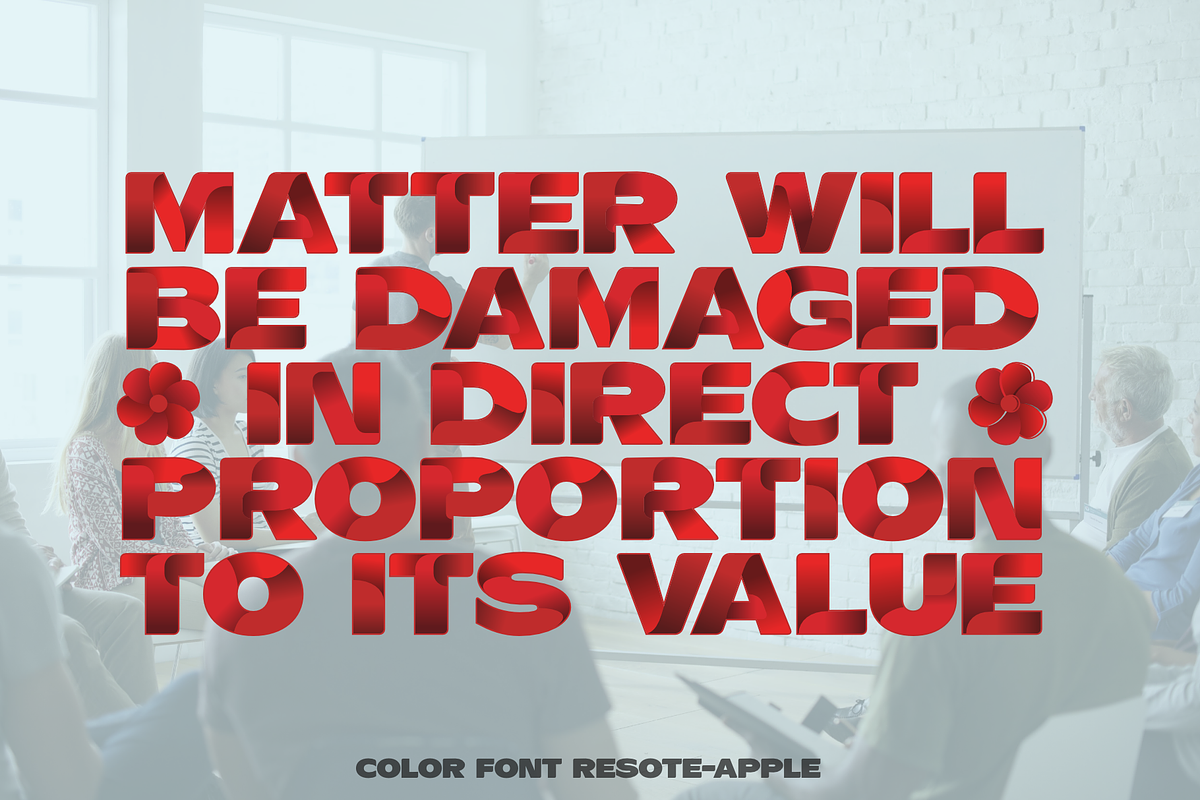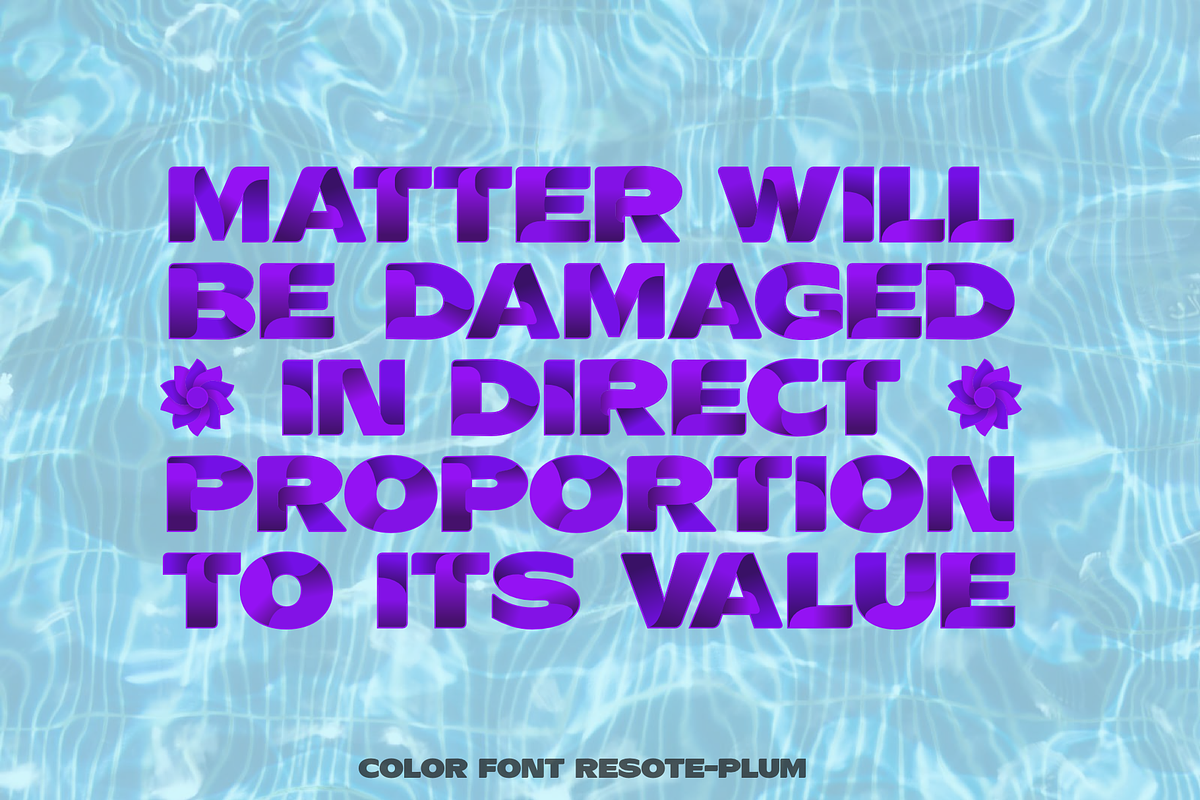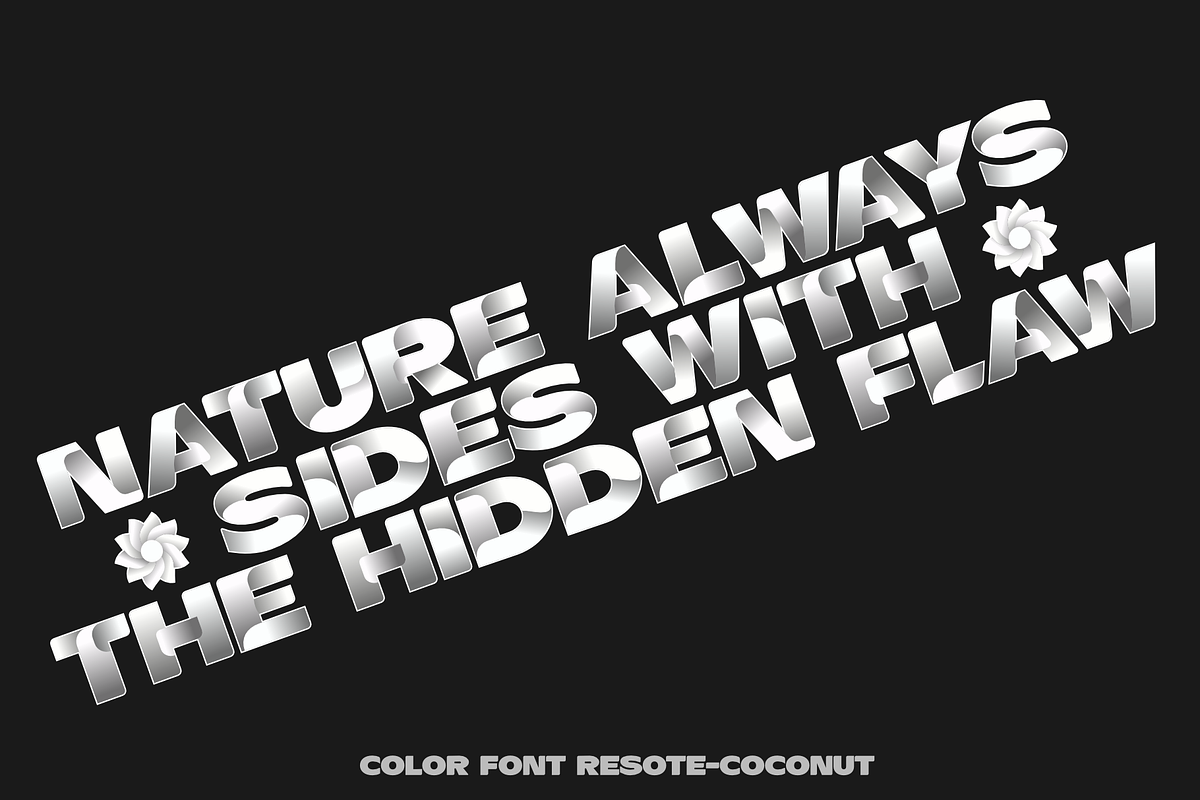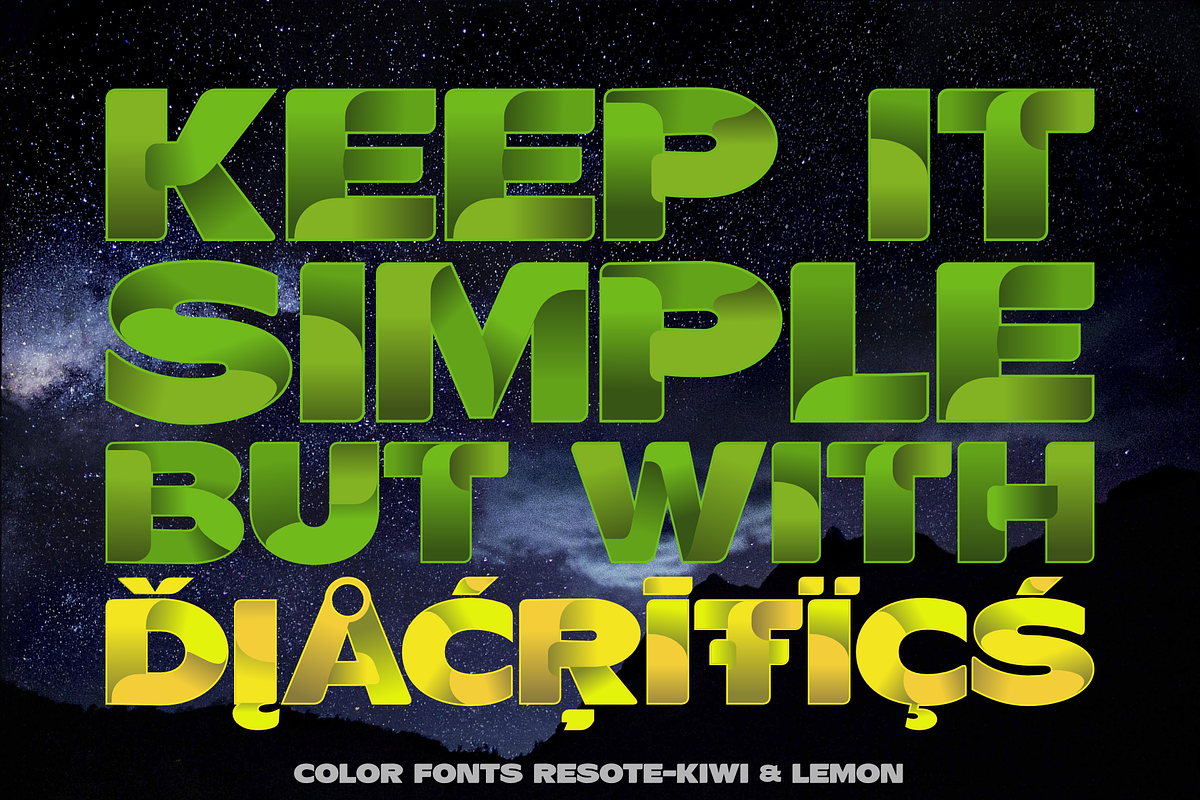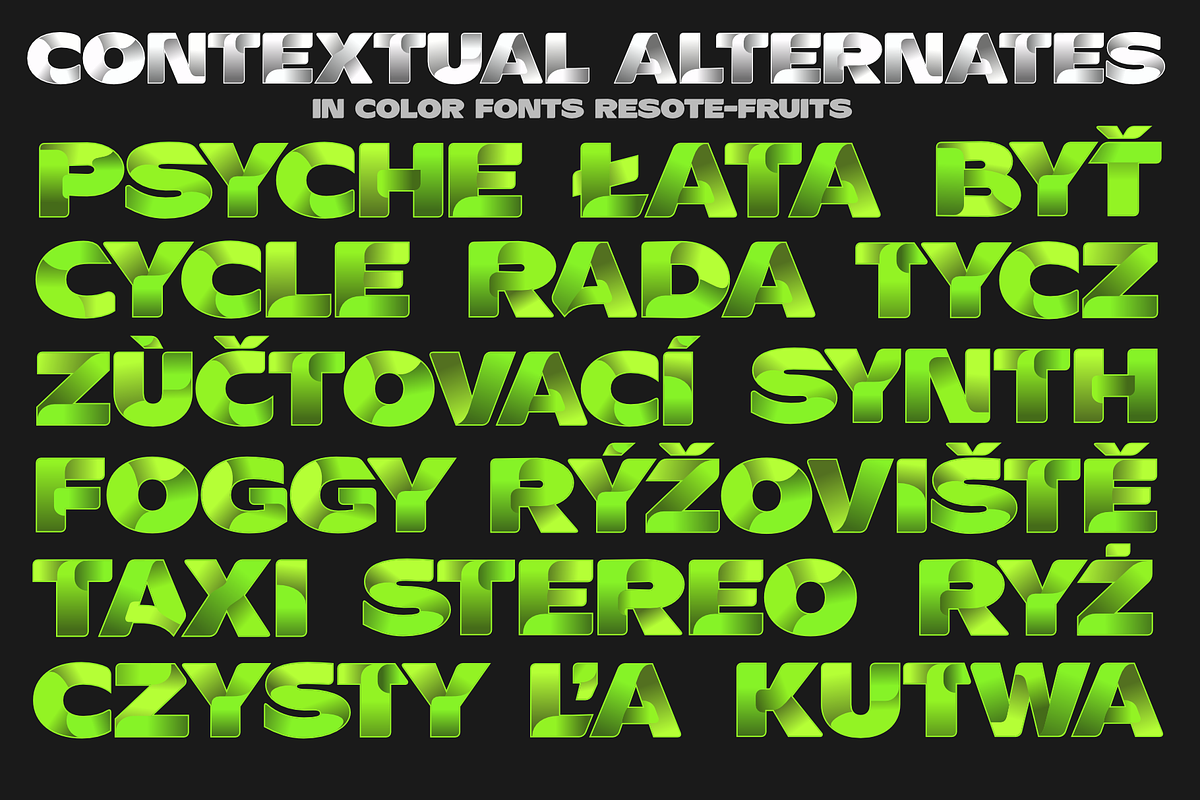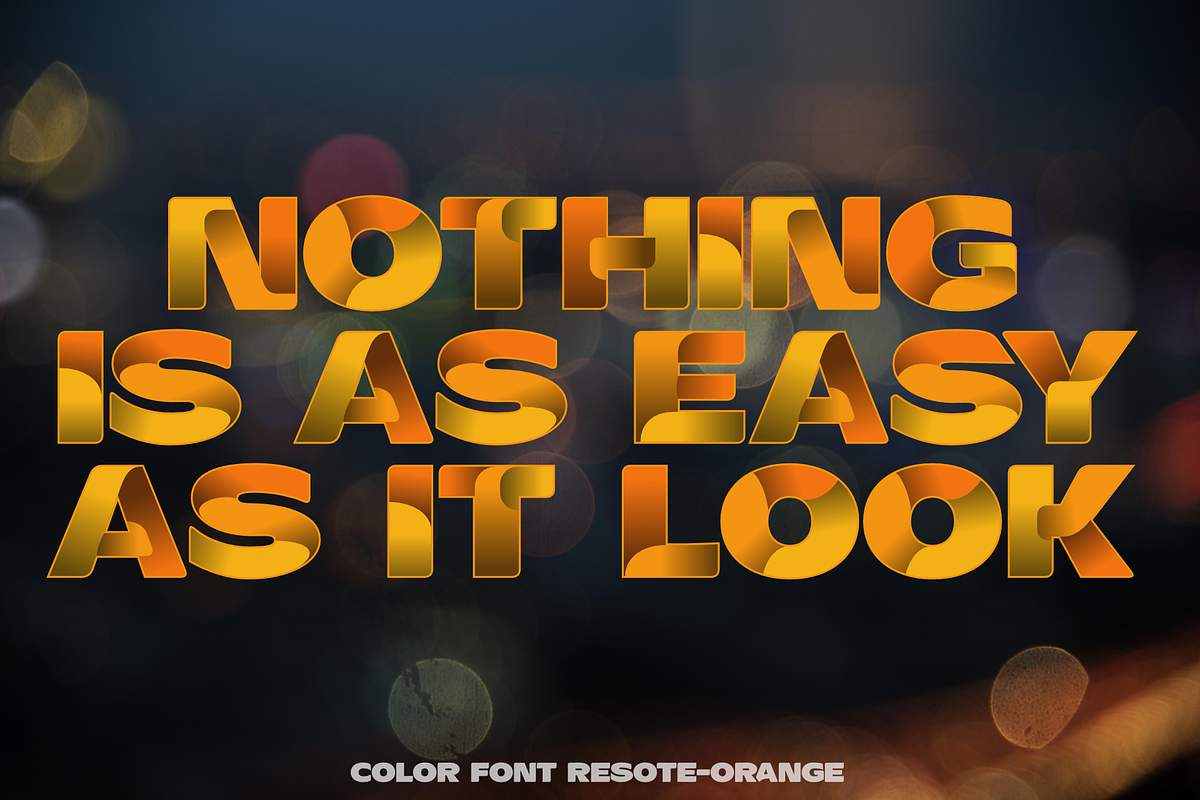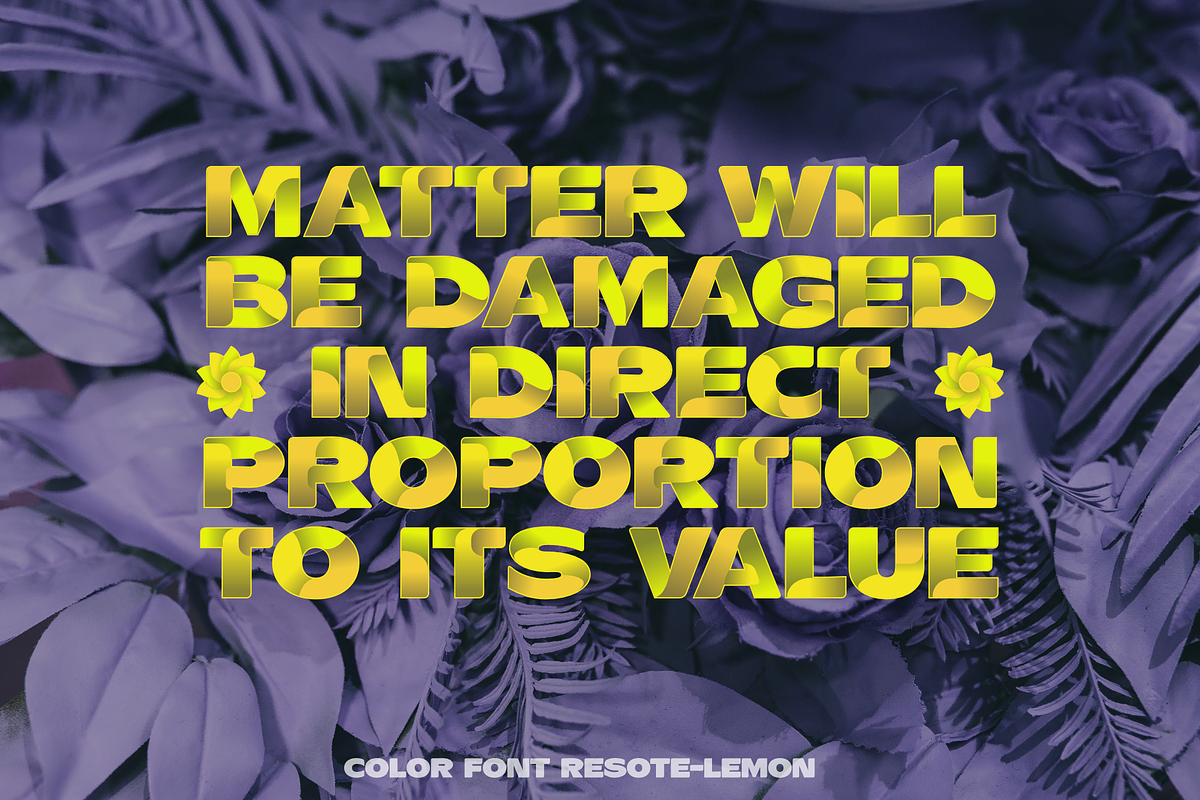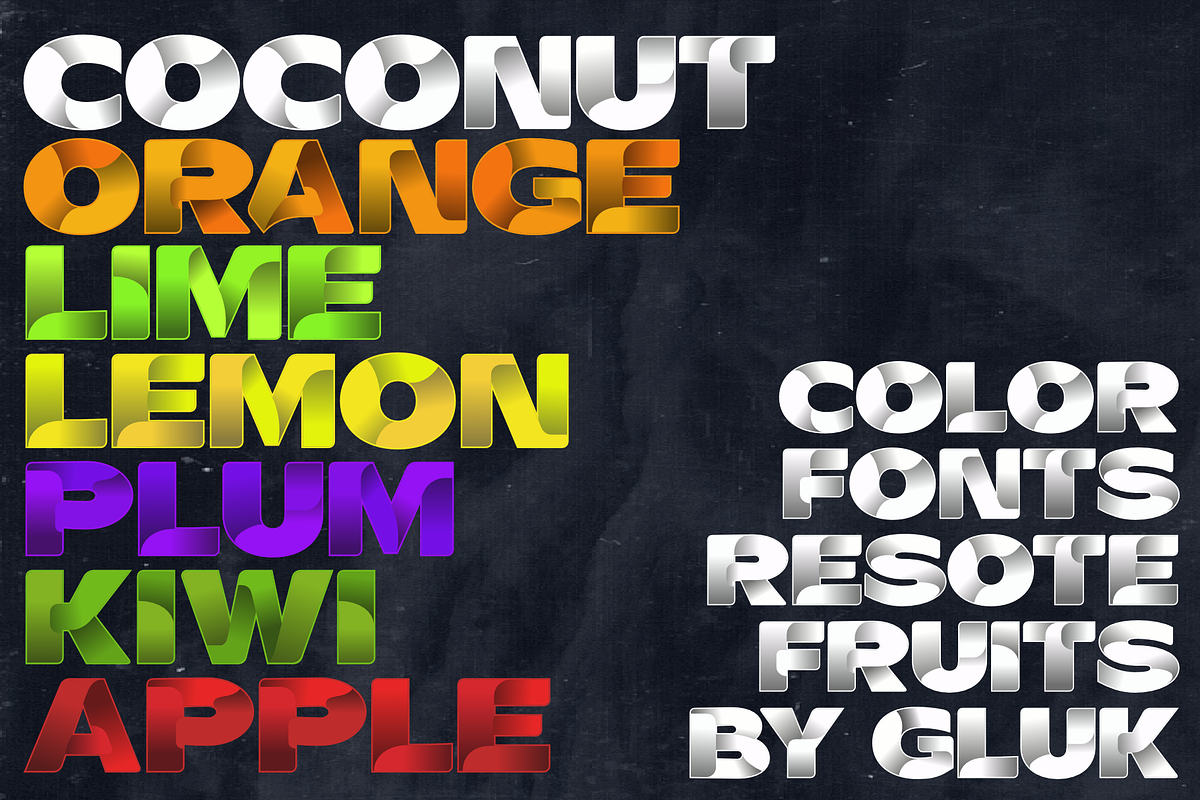
Color fonts ResotE-Fruits
Decorative, color fonts ResotE-Fruits: Apple, Coconut, Kiwi, Lemon, Lime, Orange and Plum in OpentypeSVG .ttf and .woff format with:
Ligatures (small tip: use !A! and !B! for flower glyphs!)